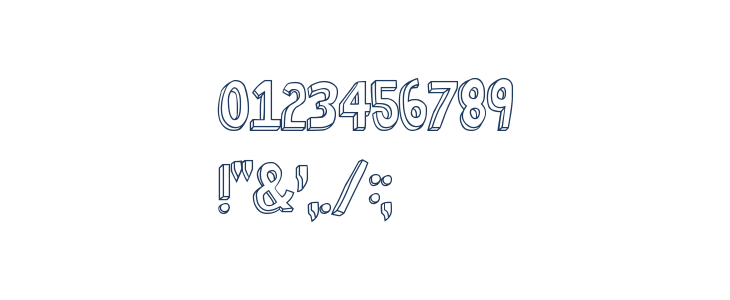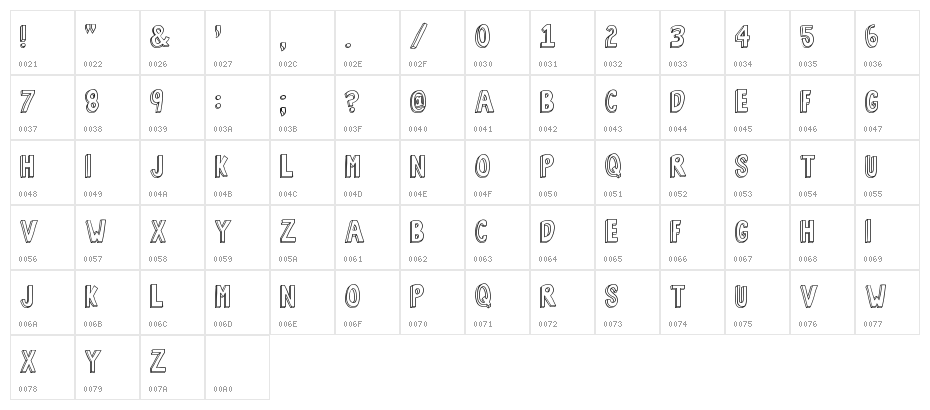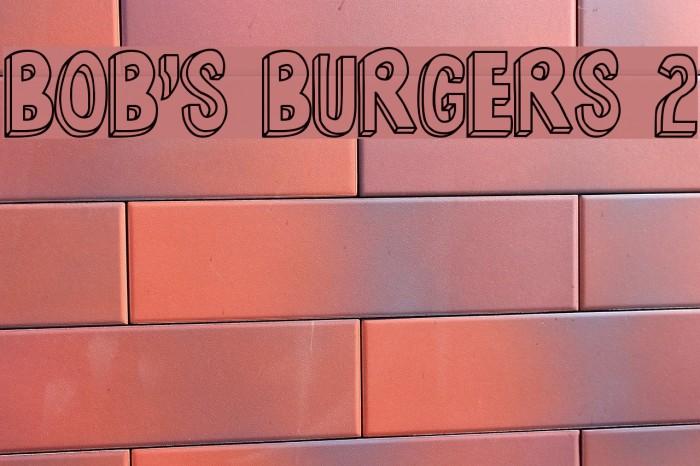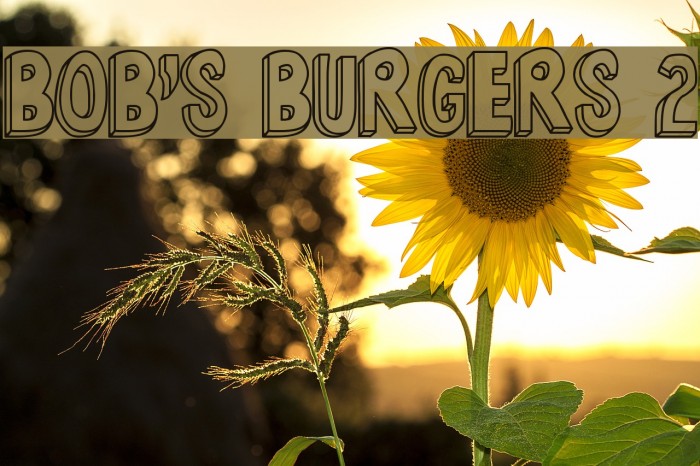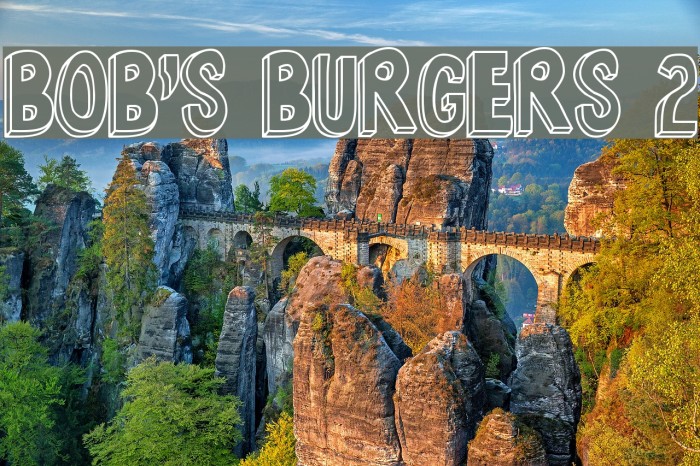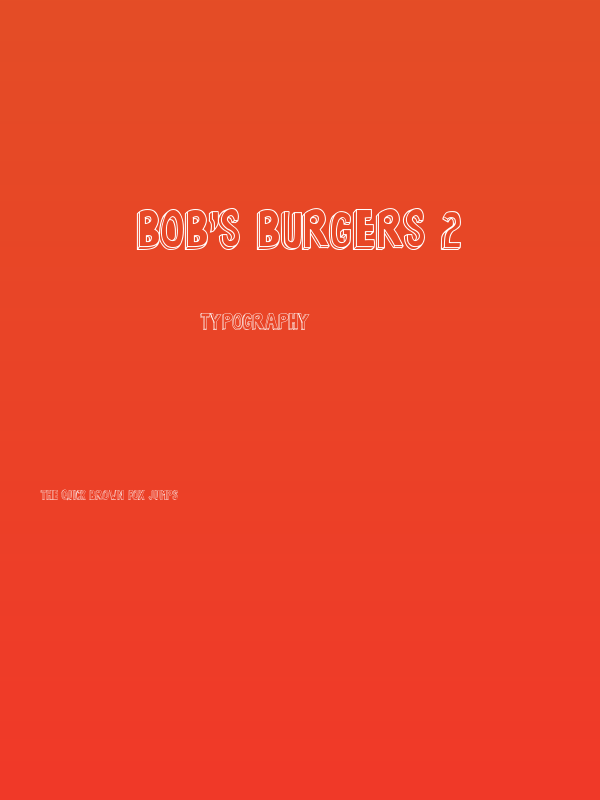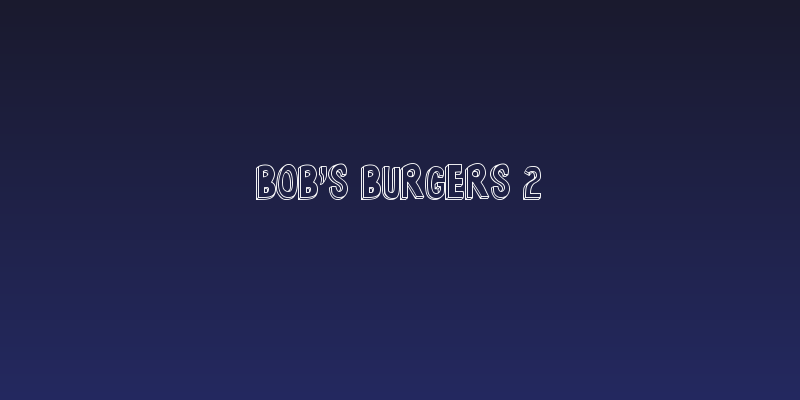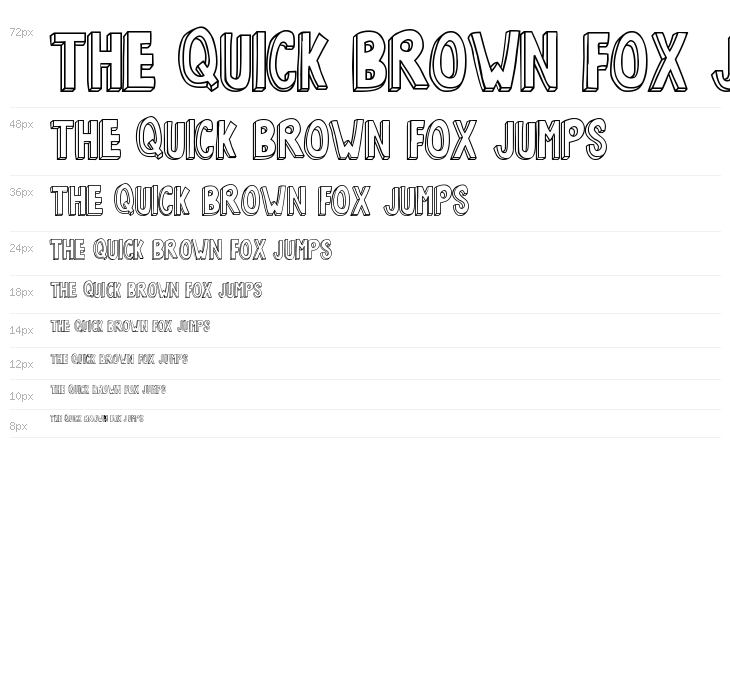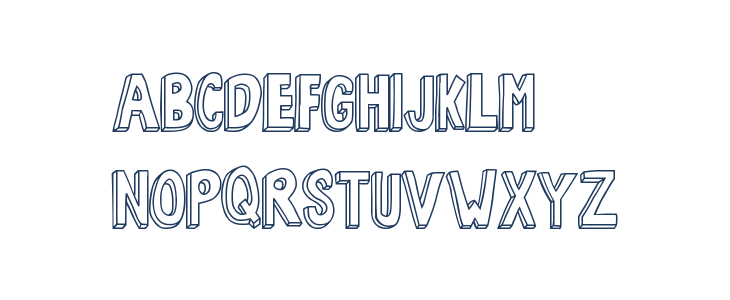
Bob's Burgers 2 Font
Bob's Burgers 2 Description
This font features a bold, playful design with a three-dimensional effect, characterized by thick outlines and a shadow that gives each character a sense of depth. The uppercase letters are uniform in height, creating a cohesive and structured appearance. The font's style is reminiscent of comic book lettering, making it both eye-catching and approachable. The numbers and special characters maintain the same bold and dimensional style, ensuring consistency across all elements. This font's unique design makes it ideal for projects that require a fun and engaging visual impact.
| Overall Style | Playful, Comic |
| Use Case | Headlines, Posters, Branding |
| Proposed Projects | Ideal for children's books, comic strips, posters, and playful branding. |